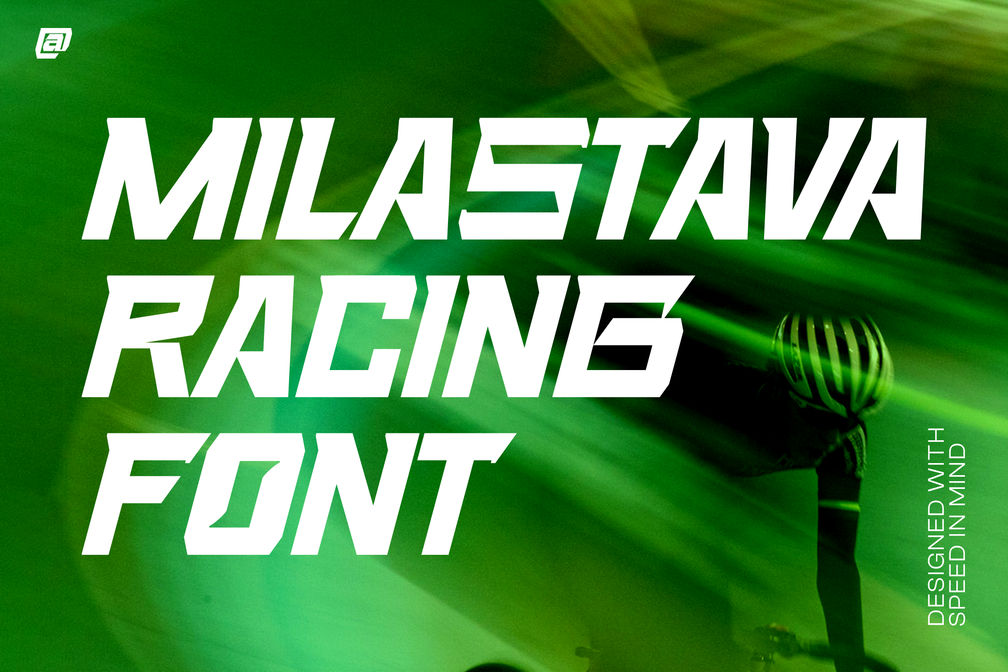
Racing Font – Milastava
Racing font designed for headlines, motorsport graphics, posters, and highspeed visual layout
Milastava is a racing-inspired display font featuring sharp angles, slanted letterforms, and strong geometric construction that convey motion and speed. The design is influenced by motorsport visuals and performance typography commonly used in automotive and racing environments.
This font is well suited for headlines, posters, branding visuals, event graphics, sports designs, and digital layouts that require a dynamic and fast-paced typographic style. Milastava is intended for display use and performs best at medium to large sizes where its structure and details remain clear.